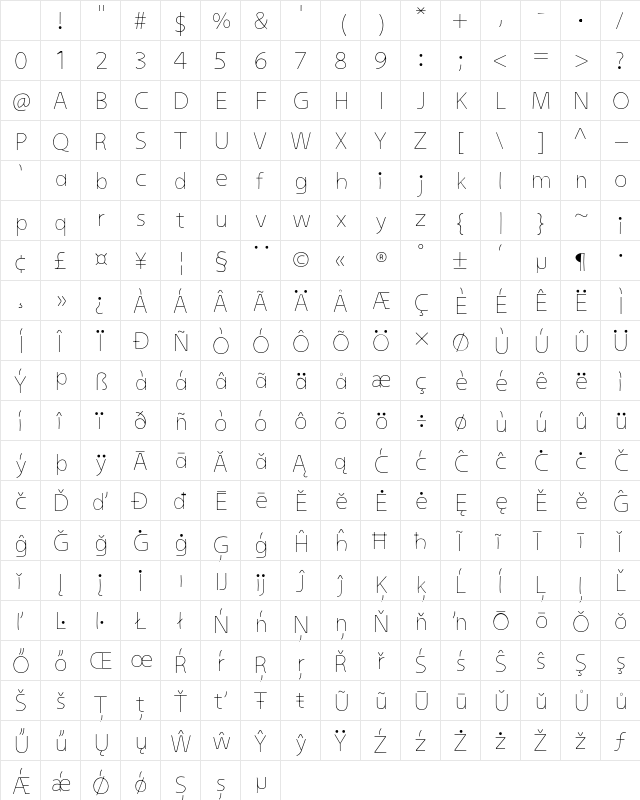
kiddySans Light
Foundry: Manuel Viergutz
Designer: Manuel Viergutz
Design Context for kiddySans
kiddySans is a composed and adaptable typeface that performs quietly and consistently across a wide range of design contexts. Its slender proportions lend an understated elegance to any composition.